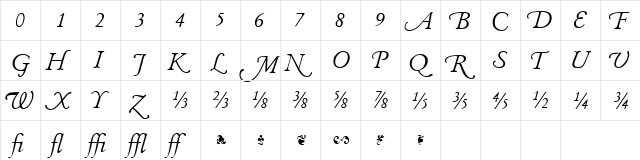
Garamand Classic Extras Book Italic
Design Context for Garamand Classic Extras Book Typeface
Garamand Classic Extras Book has the warm character of retro typography — evoking diners, record sleeves, and the golden age of print advertising. Its italic angle brings a sense of urgency and motion to the letterforms.
Font Pairing: Combine Garamand Classic Extras Book with a simple slab or neutral sans — period-accurate companions reinforce the vintage feel without competing for attention.
Pro Tip: Use Garamand Classic Extras Book for headlines and pull quotes rather than body copy — its personality is best appreciated in short, focused bursts.